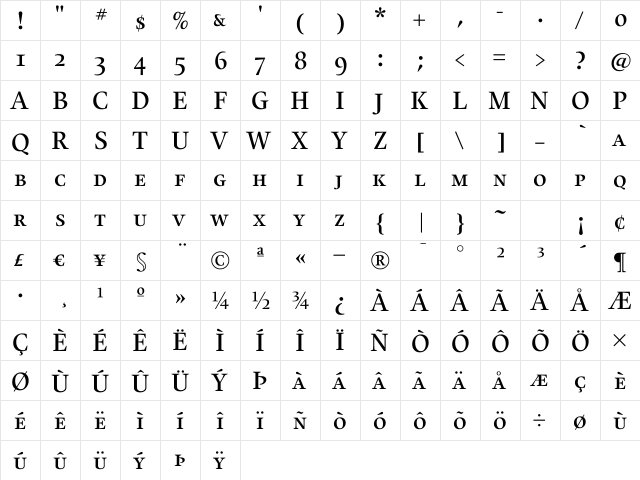
Alias UnionSC Medium Regular
Design Context for Alias UnionSC Medium Typeface
Alias UnionSC Medium offers clean, dependable letterforms without strong stylistic allegiance, making it a practical choice for designers who need flexibility.